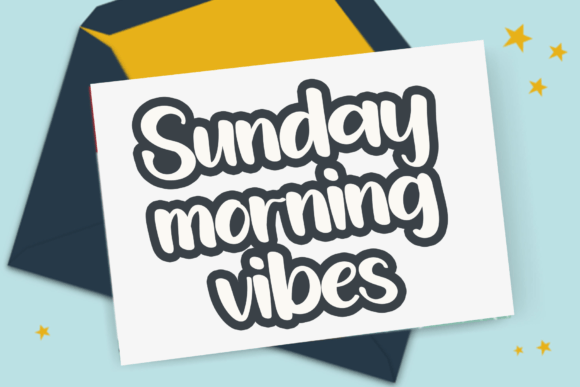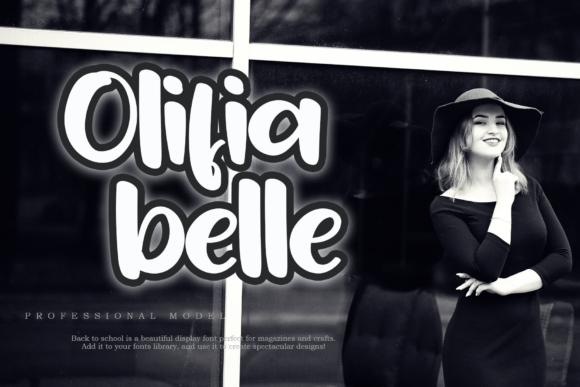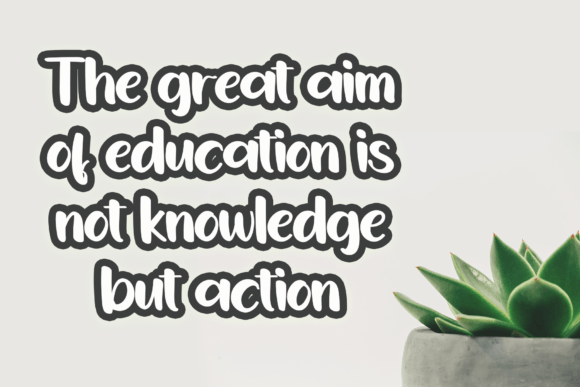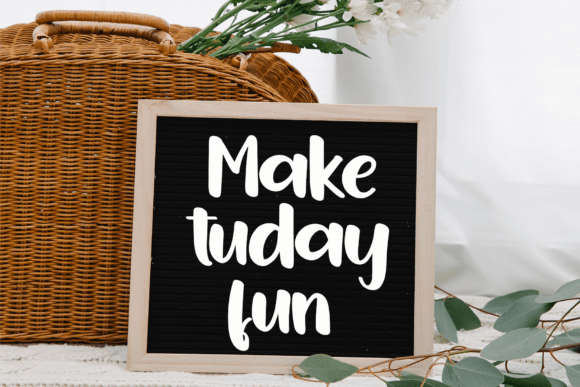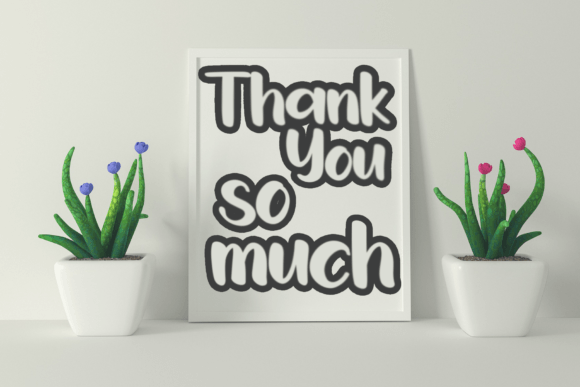
Get Ready for a Blast from the Past: Introducing the Back to School Font
Do you remember the excitement of heading back to school as a kid? The smell of fresh pencils, the feel of a new backpack, and the thrill of seeing friends you hadn’t seen all summer? For many of us, the start of a new school year is a time of renewal and possibility. And what better way to capture that feeling than with a font that embodies the spirit of the 60s and 70s?
Meet the Back to School Font, a groovy retro typeface that’s perfectly suited for designers who want to add a touch of nostalgia to their projects. Whether you’re creating t-shirts, tote bags, or wedding designs, this font is sure to make your ideas stand out and look stunning. With its playful, handwritten feel, the Back to School Font is a valuable addition to any designer’s toolkit.
Key Features of Back to School Font
- Font Family: A unique and playful font designed specifically for educational purposes.
- Unique Characteristics: Features a mix of cursive and sans-serif elements, making it perfect for creating engaging and fun educational materials.
- Customization Options: Includes a range of OpenType features, such as ligatures, swashes, and stylistic sets, allowing for endless customization possibilities.
Back to School Font Review
As a designer, I was excited to dive into the “Back to School Font” and see what it had to offer. Overall, I think it’s a solid addition to any design project, but it’s not without its limitations. Here are my thoughts:
- Fun and playful feel – The font has a great energy that’s perfect for back-to-school designs, youth-focused projects, or anything that needs a lighthearted touch.
- Good legibility – The font is easy to read, even at smaller sizes, which is a must-have for any font.
- Clean design – The font has a clean and simple design that makes it easy to pair with other fonts and graphics.
Limited Functionality ⚠️
- Limited character set – The font only includes uppercase and lowercase letters, numbers, and a few punctuation marks, which may limit its use in certain projects.
- No italic or bold options – While the font looks great in its standard weight, not having italic or bold options can make it difficult to create emphasis or add depth to text.
Overall, I think the “Back to School Font” is a fun and useful addition to any designer’s toolkit. While it may have some limitations, its playful feel and good legibility make it a great choice for a wide range of projects.
The Back to School font is perfect for creating educational materials, such as lesson plans, worksheets, and posters.
It’s also great for creating fun and playful designs for back to school-themed parties and events.